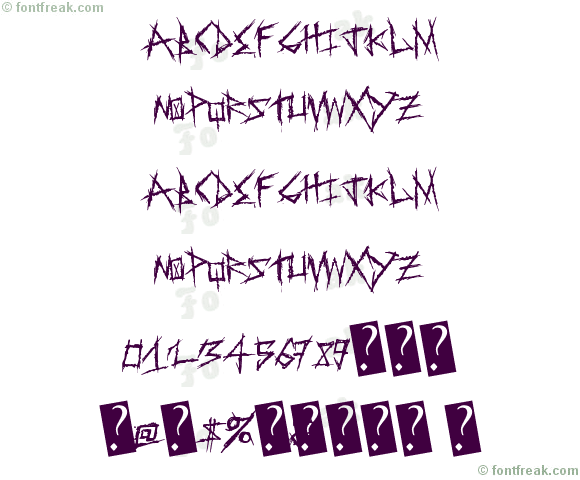
SweetRevenge
About SweetRevenge
SweetRevenge by Xerographer Fonts is a unique display font that captures attention with its striking visual style. This font features a bold, jagged design that evokes a sense of rebelliousness and energy, making it an excellent choice for projects that aim to convey a strong character. The strokes are uneven and sharp, creating a dramatic contrast that ensures readability while also providing an edgy aesthetic. The spacing is intentionally tight, which adds to the overall impact of the font, making it ideal for grabbing viewers' attention.
The SweetRevenge font is particularly well-suited for a variety of creative applications. It shines in contexts such as music event posters, where its fierce appearance can reflect the intensity of the performances. Additionally, it works beautifully for merchandise branding, especially in the fashion or streetwear sectors, where a bold statement is desired. This font can also enhance the visual appeal of graphic novels and comic book titles, contributing to the dynamic storytelling experience. Furthermore, its unique character makes it a fitting choice for tattoo designs, allowing for personal expression in a visually striking manner.
What sets the SweetRevenge font apart is not just its rebellious aesthetic, but also its versatility in creative applications. Whether you’re designing a promotional flyer or a captivating social media post, this font can elevate your work, making it memorable. Don’t miss the chance to incorporate this distinctive typeface into your designs; SweetRevenge font free download is available for those looking to make a bold statement.